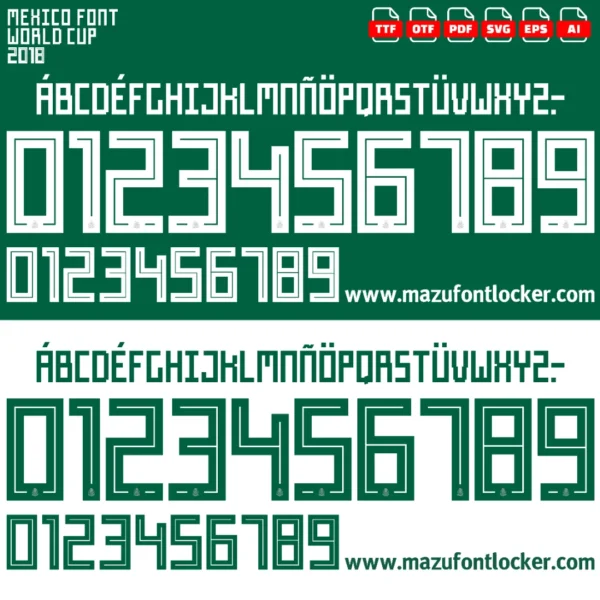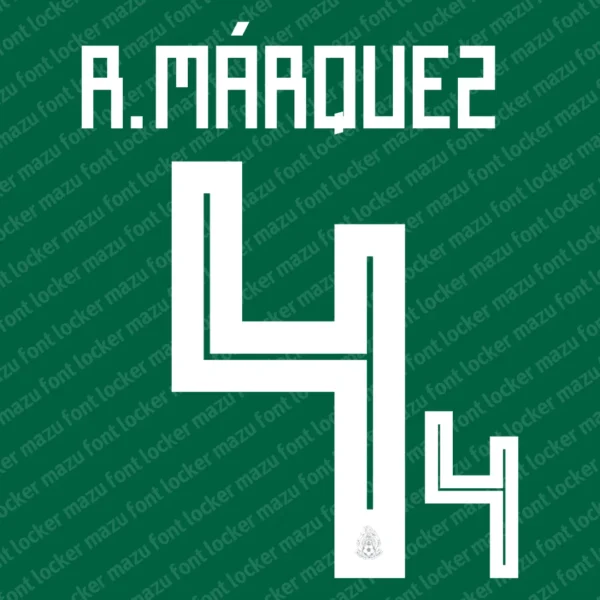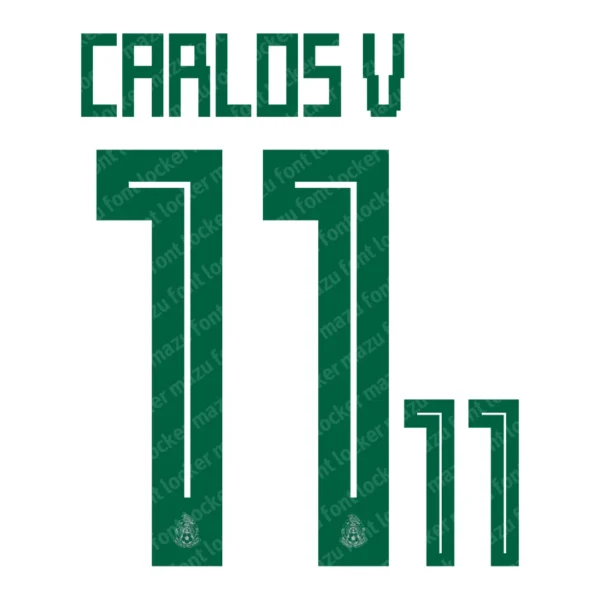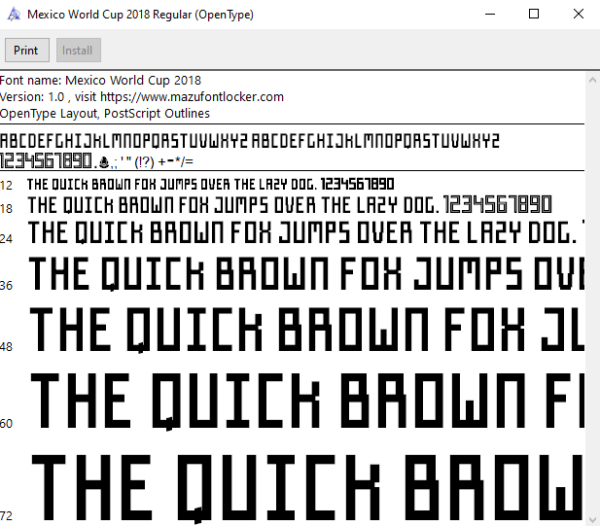
Mexico World Cup 2018 Font Vector – Epic El Tri Mexican Glory Masterpiece
This font captures the commanding, razor-sharp, thunderous, and volcanic lettering that perfectly embodies Mexico’s iconic national team identity, proud Mexican heritage, never-say-die mentality, and raw football power — delivering unmatched authenticity, premium quality, explosive energy, and unforgettable World Cup dominance for professional jersey mockups, dynamic football graphics, premium sports branding, passionate fan creations, and high-end design projects.
Mexico World Cup 2018 Font Vector – Iconic Green & Red Typeface
The Mexico World Cup 2018 Font Vector is a premium typeface that accurately recreates the official match lettering worn by the Mexico National Team during the 2018 FIFA World Cup in Russia. This high-quality vector font kit captures the bold, vibrant, and instantly recognizable typography that perfectly complements the Mexican national team’s iconic green, white, and red identity.
Designed for professional designers, football enthusiasts, and passionate Mexico supporters, the Mexico World Cup 2018 Font Vector delivers exceptional authenticity for creating realistic jersey mockups, football merchandise, social media graphics, match posters, and custom fan artwork. Every character has been carefully recreated to match the powerful and modern visual style of one of the most passionate football nations in the world.
Why Choose Mexico World Cup 2018 Font Vector
This font stands out thanks to its precise vector construction and authentic national team styling. Every letter and numeral has been meticulously recreated to match the official shirt lettering used throughout the 2018 FIFA World Cup campaign. Whether you’re producing professional kit templates or creating eye-catching football content, the Mexico World Cup 2018 Font Vector delivers a genuine match-ready appearance.
The lettering featured in the Mexico World Cup 2018 Font Vector combines clean geometric lines with powerful modern proportions. The result is a premium and highly readable typeface that reflects El Tri’s fighting spirit, rich football heritage, and passionate fanbase.
- Complete uppercase A–Z alphabet and numbers 0–9 in authentic Mexico World Cup 2018 style
- Includes authentic FIFA World Cup badge glyph placement beneath player numbers
Mexico World Cup 2018 Campaign
The 2018 FIFA World Cup in Russia was a memorable tournament for Mexico as they competed with pride in one of the world’s biggest stages. Wearing their signature green colors, El Tri delivered passionate performances that continue to inspire fans around the globe.
The Mexico World Cup 2018 Font Vector is an independently designed typeface package inspired by the official shirt lettering for the 2018 FIFA World Cup season. It has been carefully recreated for football enthusiasts, graphic designers, collectors, and creators producing custom jersey concepts, football artwork, and fan-made projects.